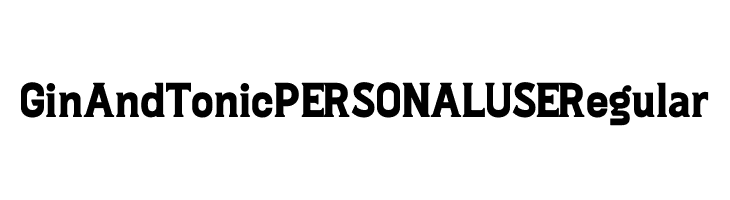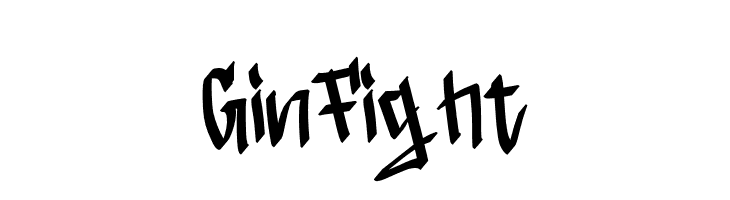
A bold, outlined font with a modern and clean aesthetic.
A bold, italic font with strong strokes and a dynamic presence.
A bold, modern font with a vintage touch, featuring strong, consistent characters.
A bold, graffiti-inspired font with sharp, angular strokes.
A bold, geometric font with a futuristic and angular design.
A bold, italicized font with a modern, dynamic style and sharp angles.
A bold, oblique font with a futuristic and dynamic style.
A flowing, elegant script font with a handwritten style.
A playful, bold font with rounded, bubbly characters.